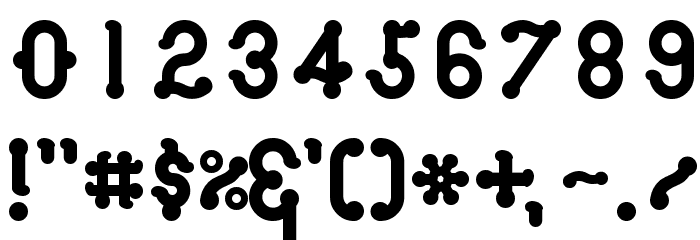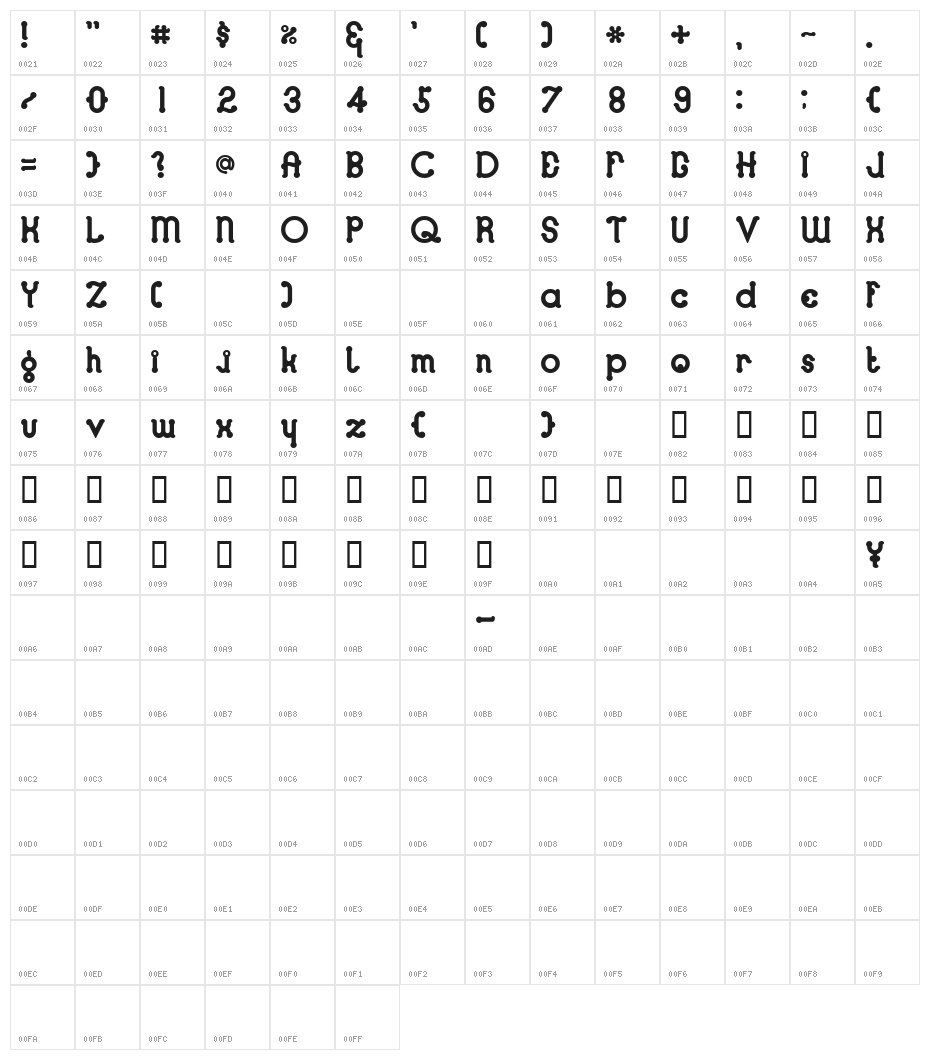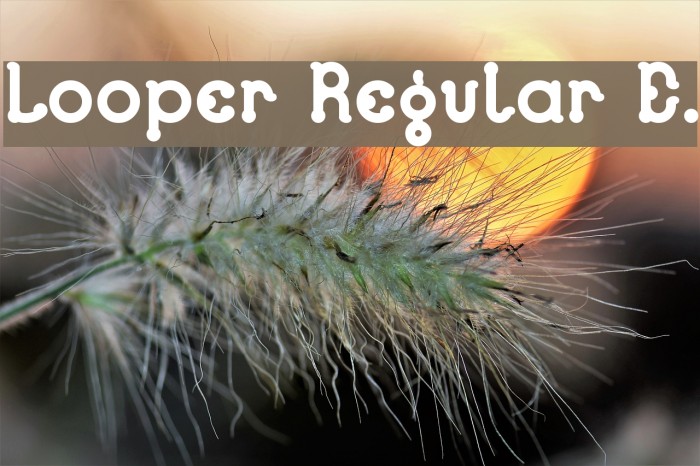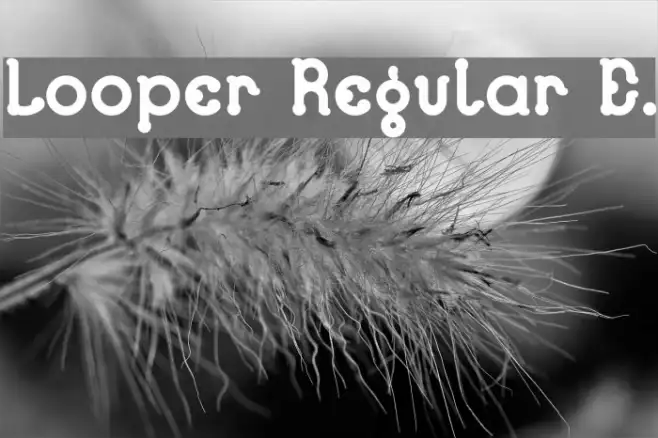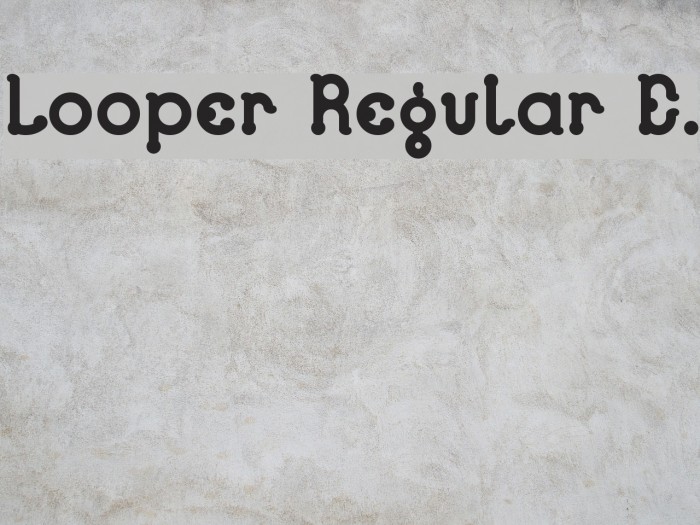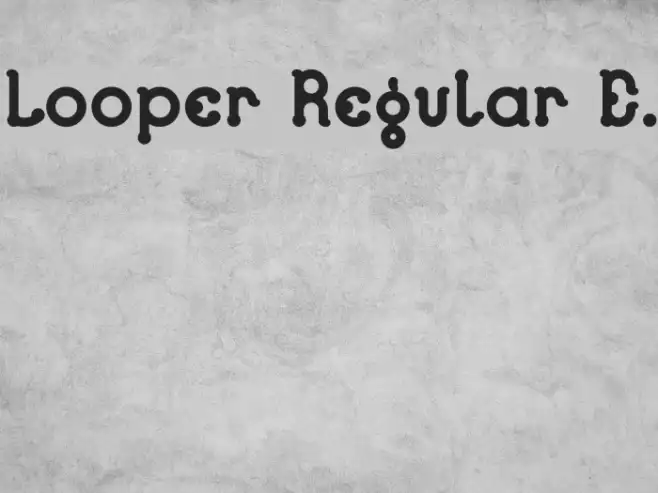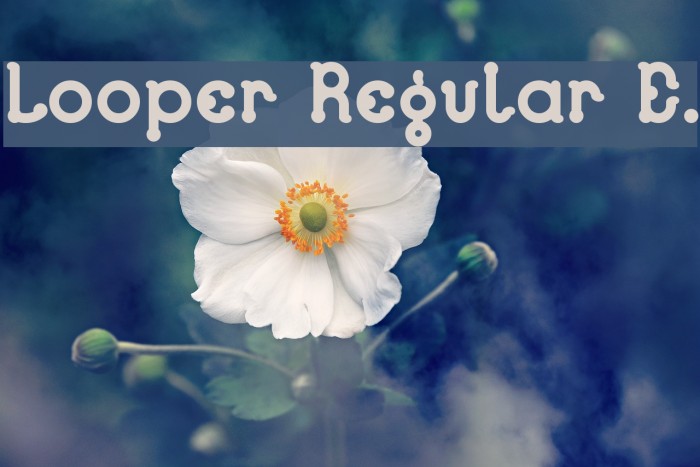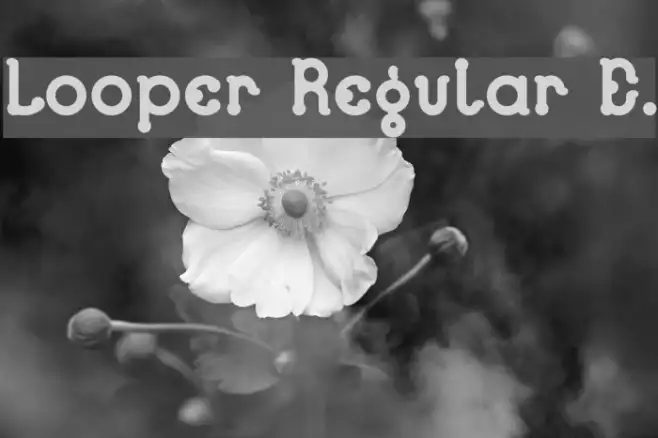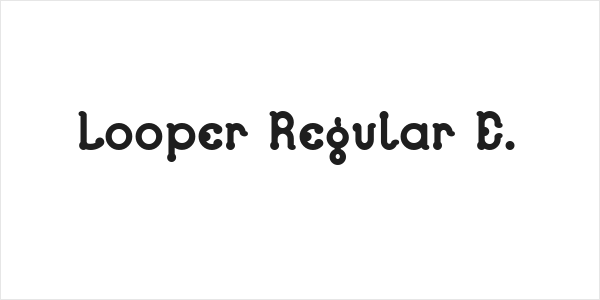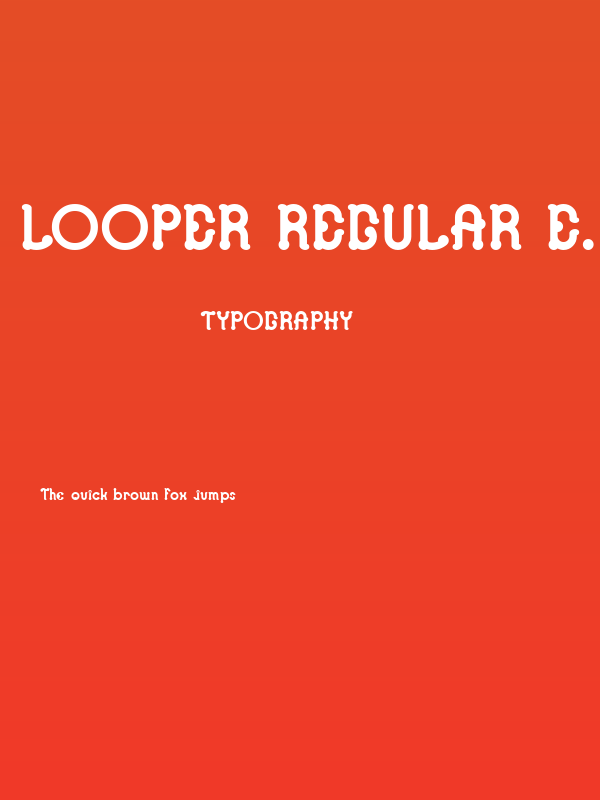
Looper Regular E. Font
Looper Regular E. Description
This font features a playful and unique design with rounded, loop-like terminals that give it a whimsical and friendly appearance. The characters are bold and have a consistent stroke width, creating a uniform look across both uppercase and lowercase letters. The numerals and special characters maintain the same playful style, making them easily recognizable and cohesive with the rest of the typeface. The overall design is modern and eye-catching, suitable for projects that require a touch of creativity and fun.
| Proposed Projects | Ideal for children's books, playful branding, creative posters, and eye-catching headlines. |